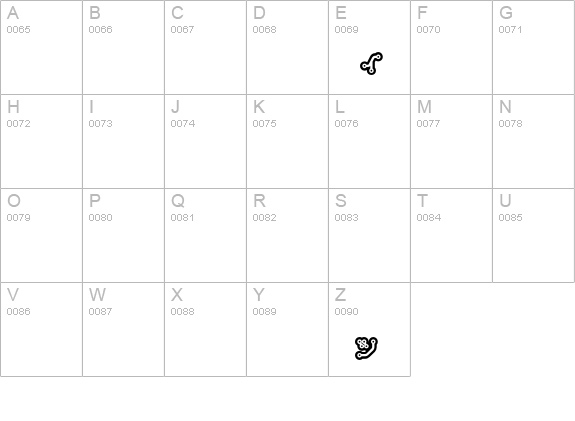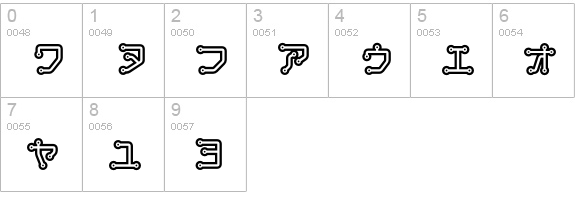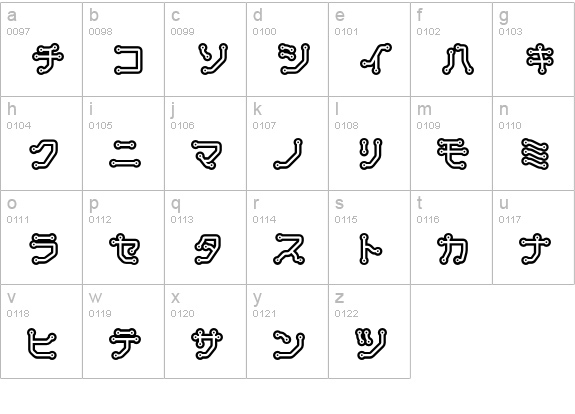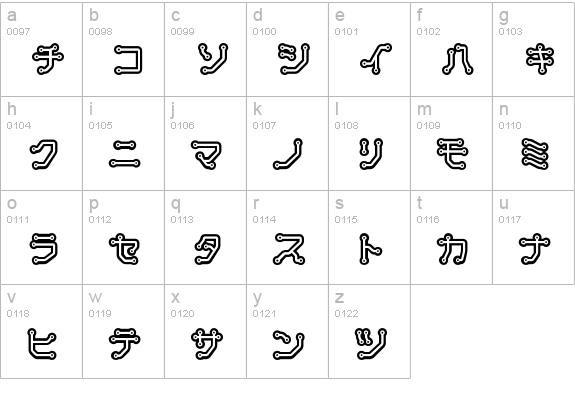
Introducing Circuit font, a sleek and modern typeface that exudes a sense of technology and innovation. With its clean lines and futuristic aesthetic, Circuit is perfect for design projects that require a contemporary and edgy look. This versatile font can be used for a variety of purposes, from branding to web design to packaging. What's even better is that Circuit font is available for free download at FontsMarket.com. This means you can easily access this stylish typeface and incorporate it into your projects without any cost. Don't miss out on the opportunity to add a touch of modernity to your designs with Circuit font. Download it now and start creating visually striking graphics that stand out from the crowd.